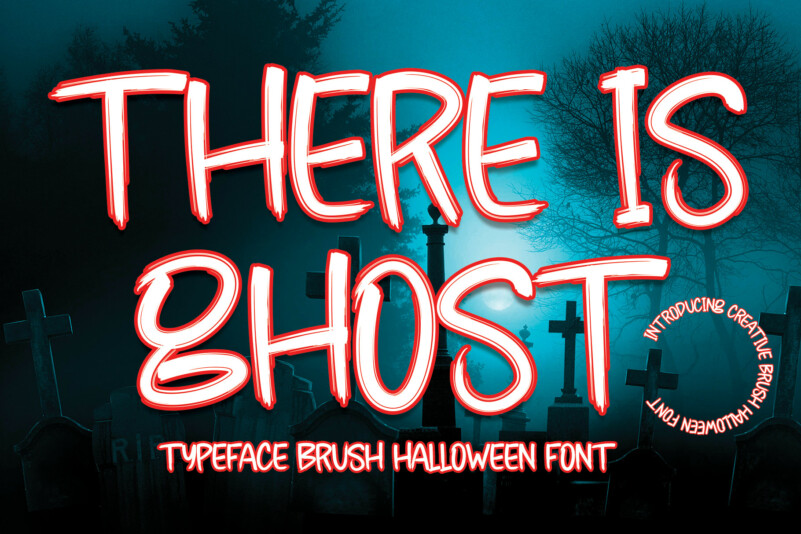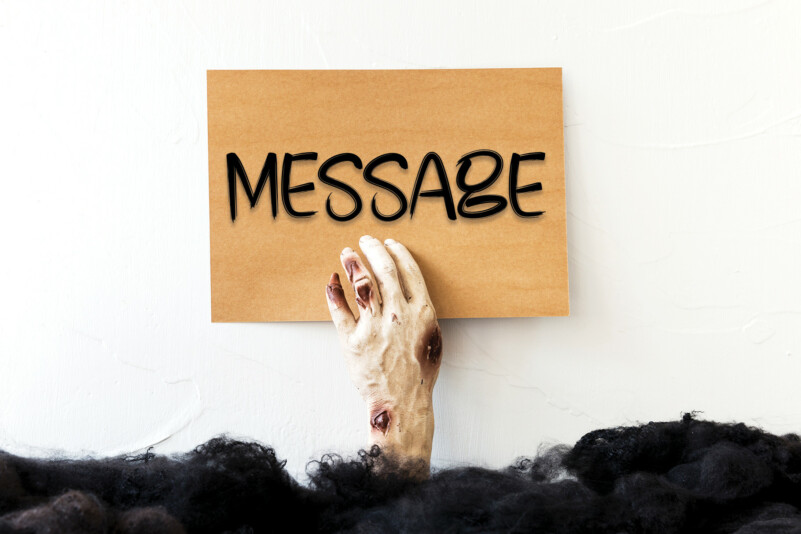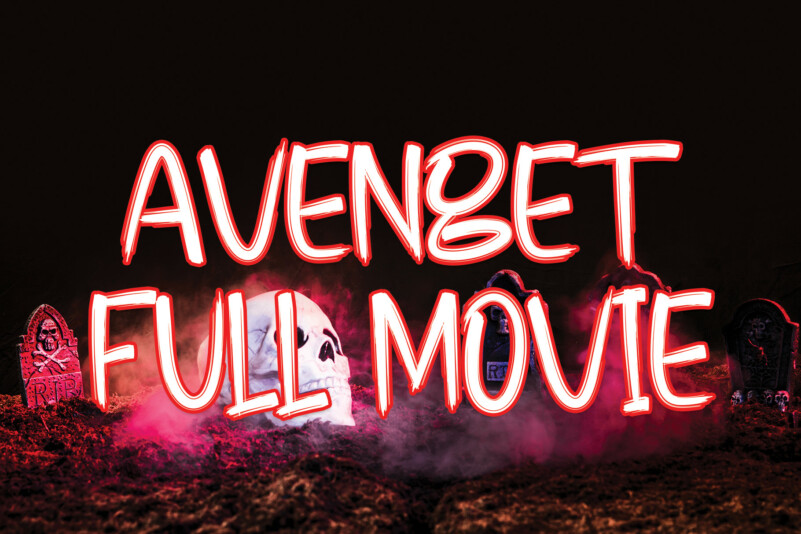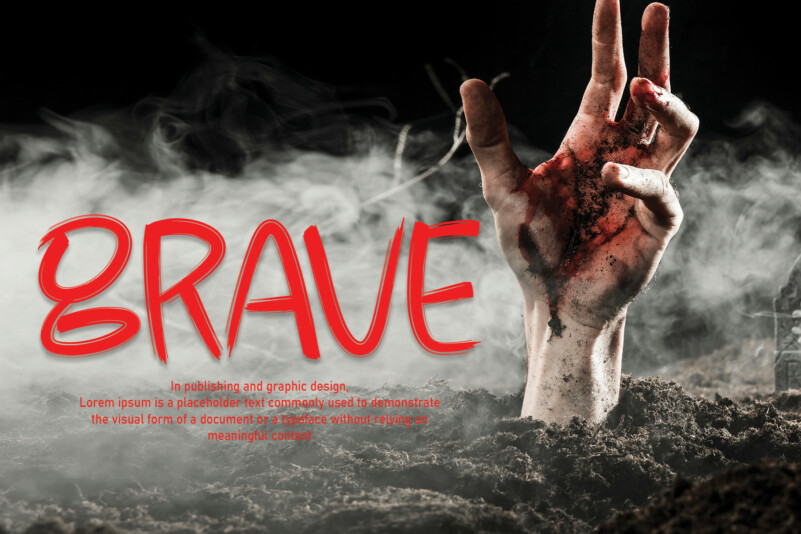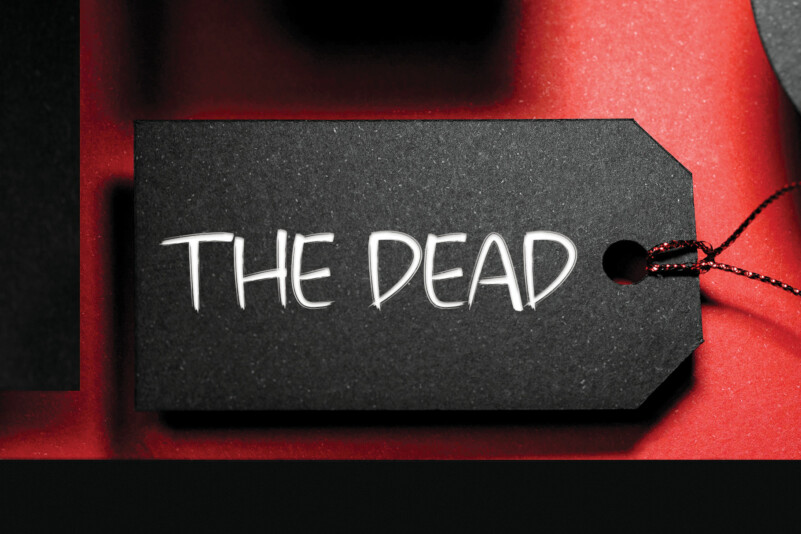
There Is Ghost Font
There is Ghost’s latest style letters are perfect for wall displays, wedding invitations, social media post logos, advertisements, product packaging, product designs, labels, photography, watermarks, invitations, stationery,